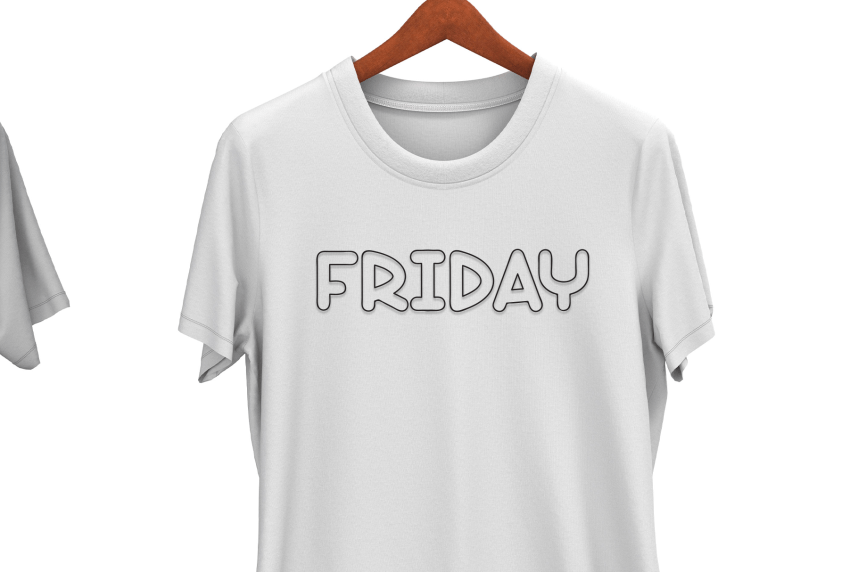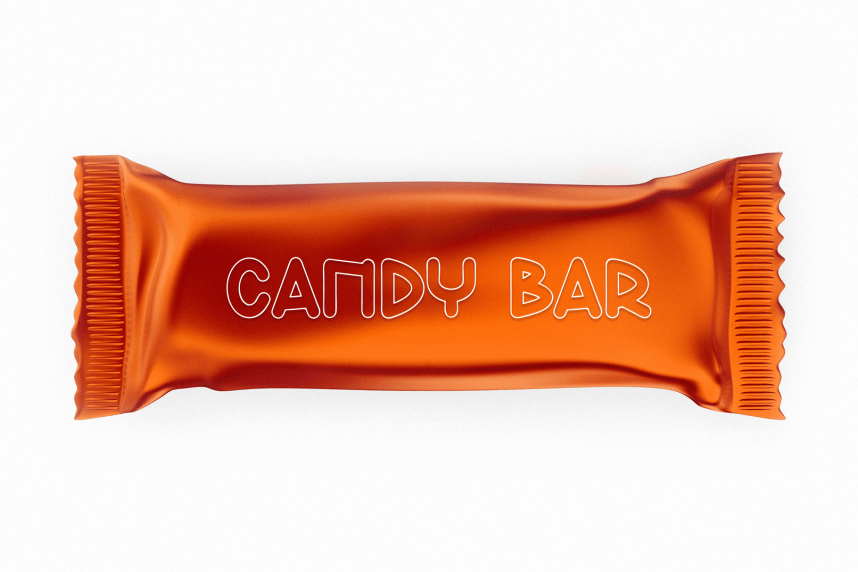
Sunday Morning – Playful Style Font
Sunday Morning – Playful Style Font is a sweet and friendly handwritten display font. Cute and fun, this font is ideal for writing wedding invitations, cards, or any other design that might need a playful touch!